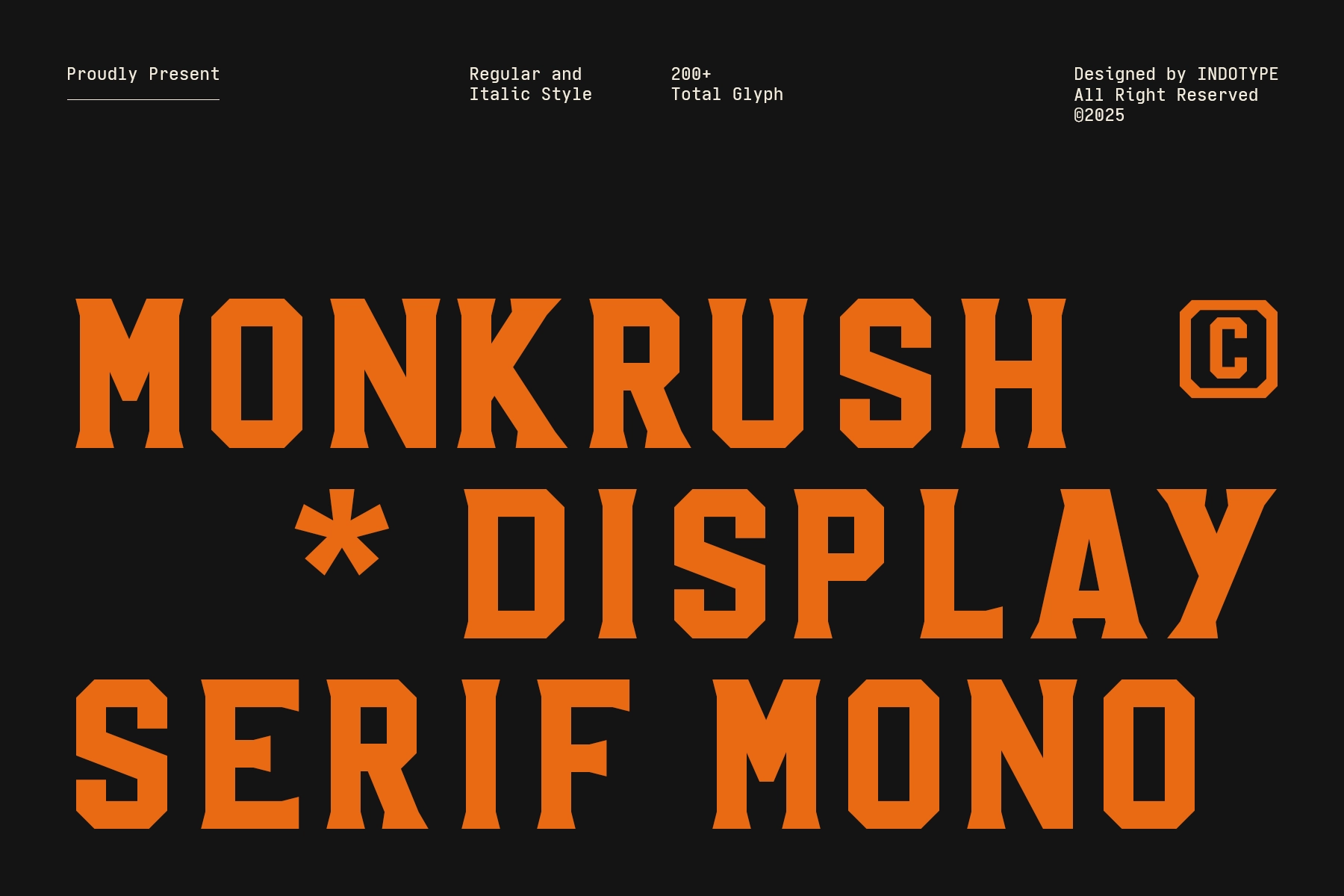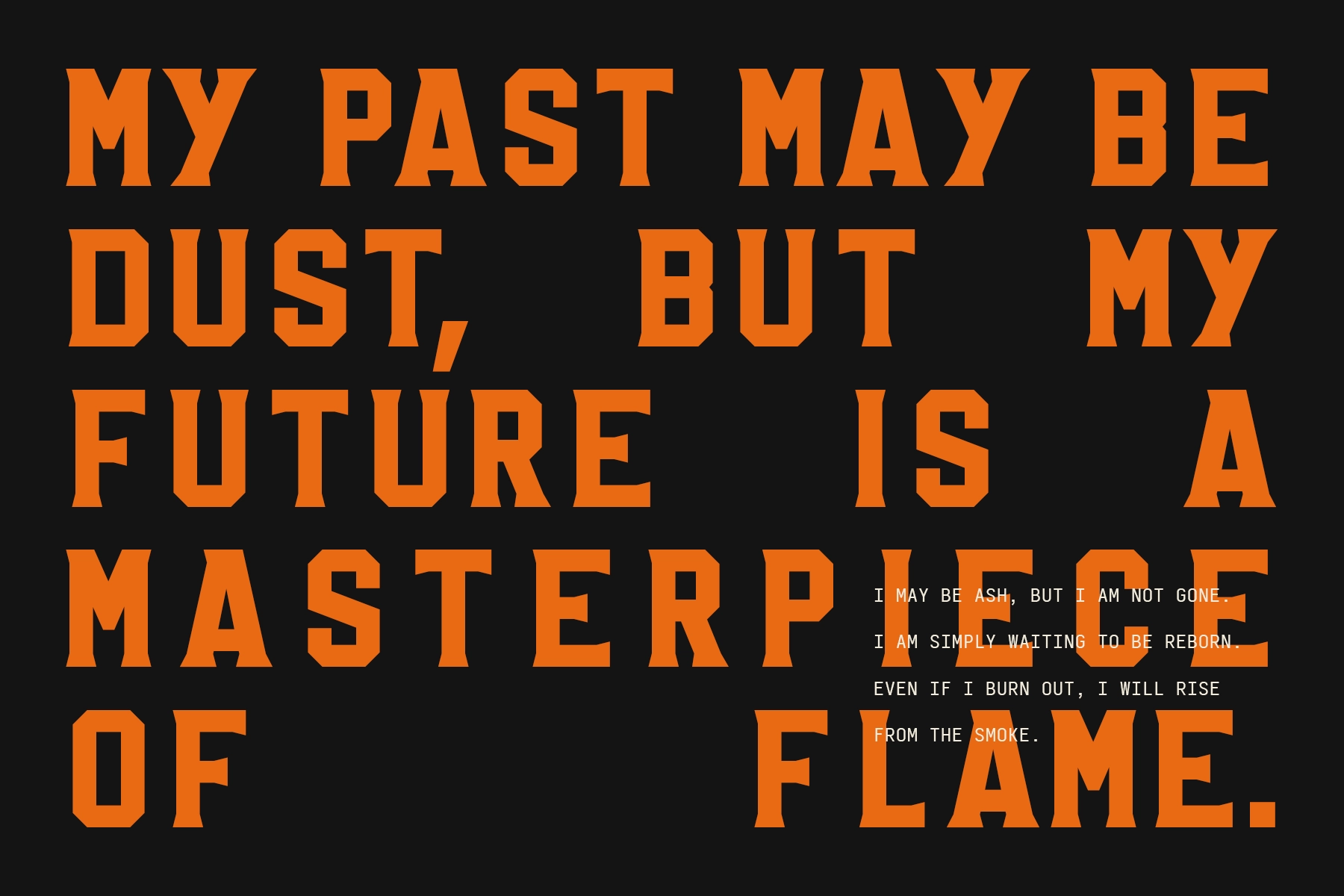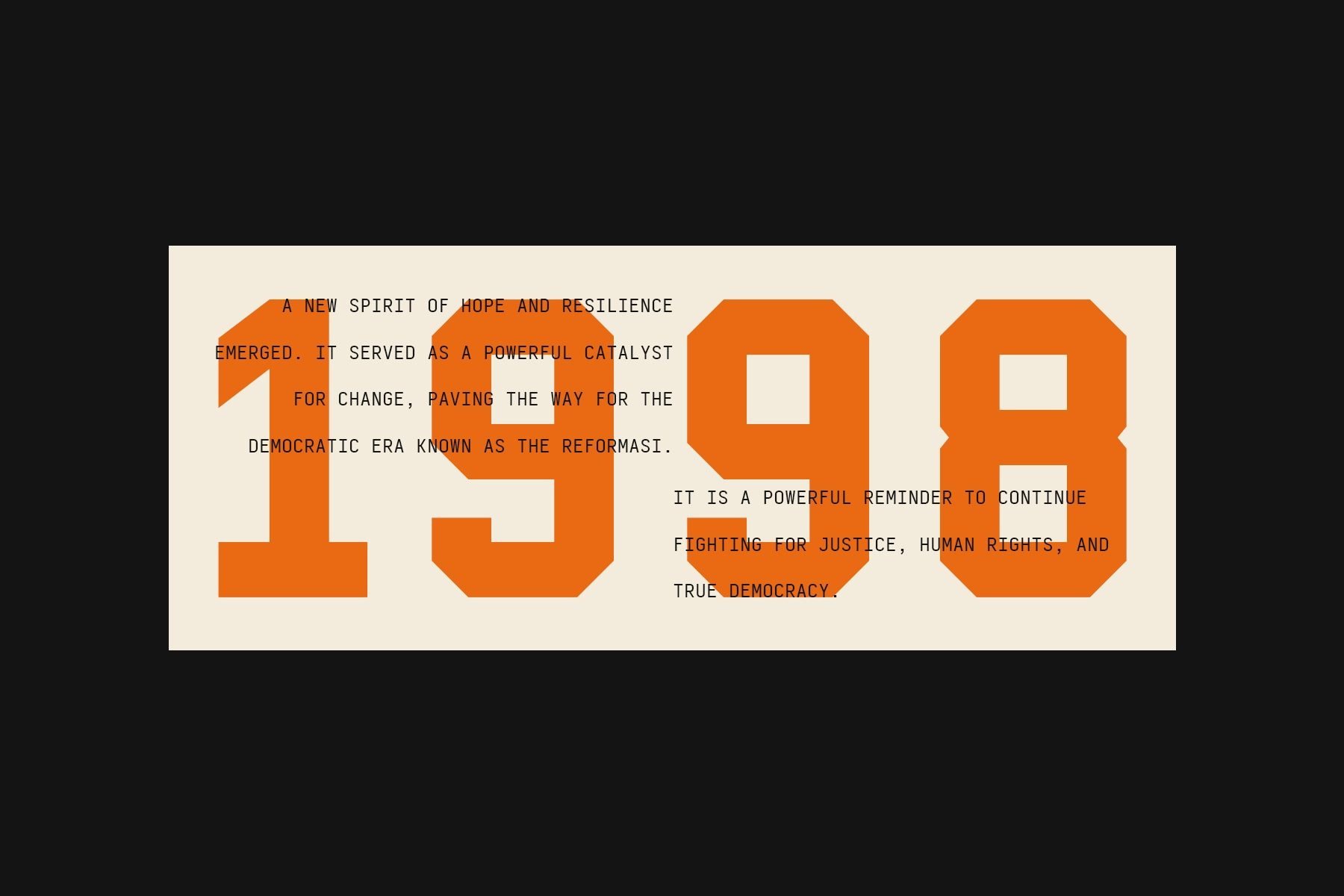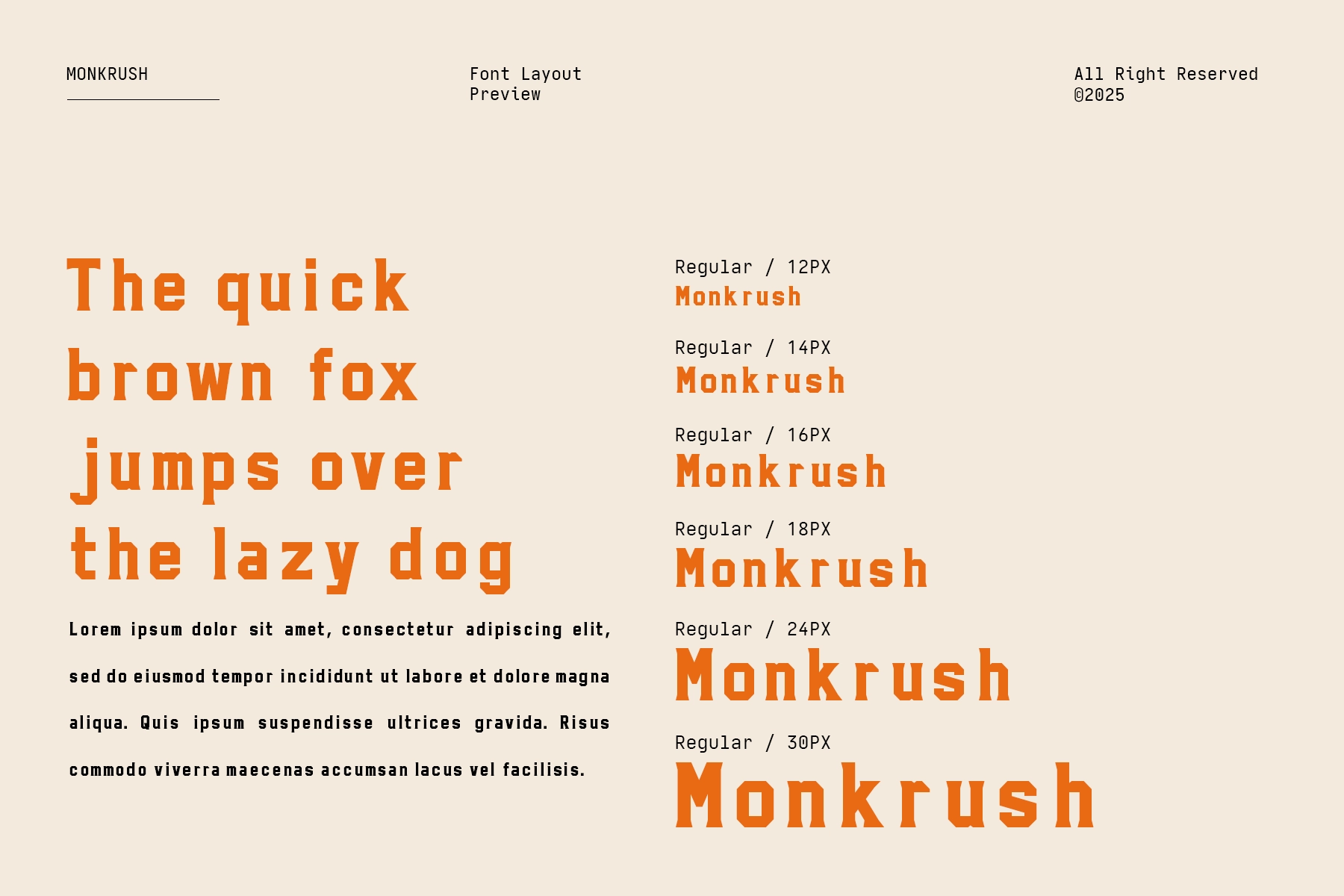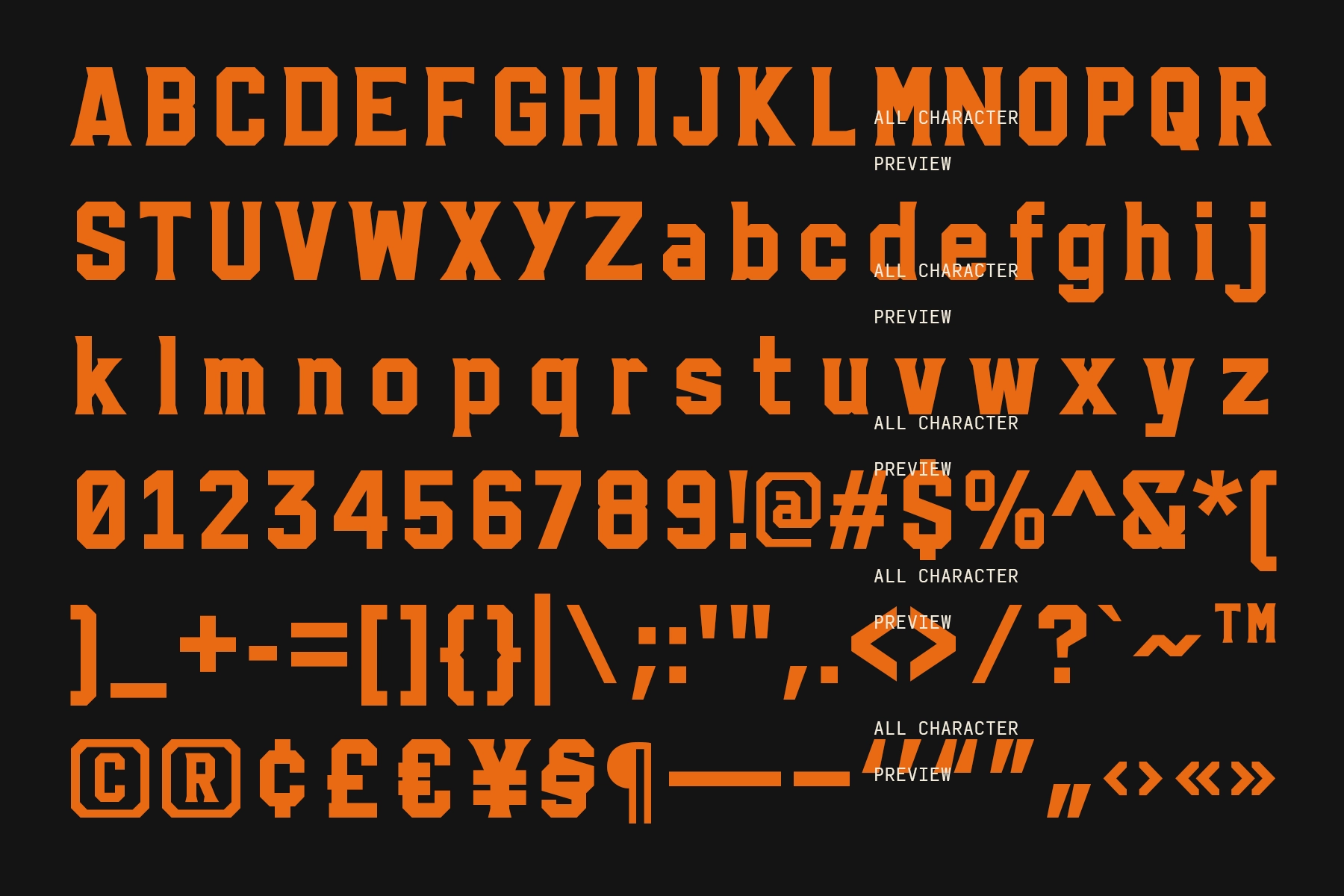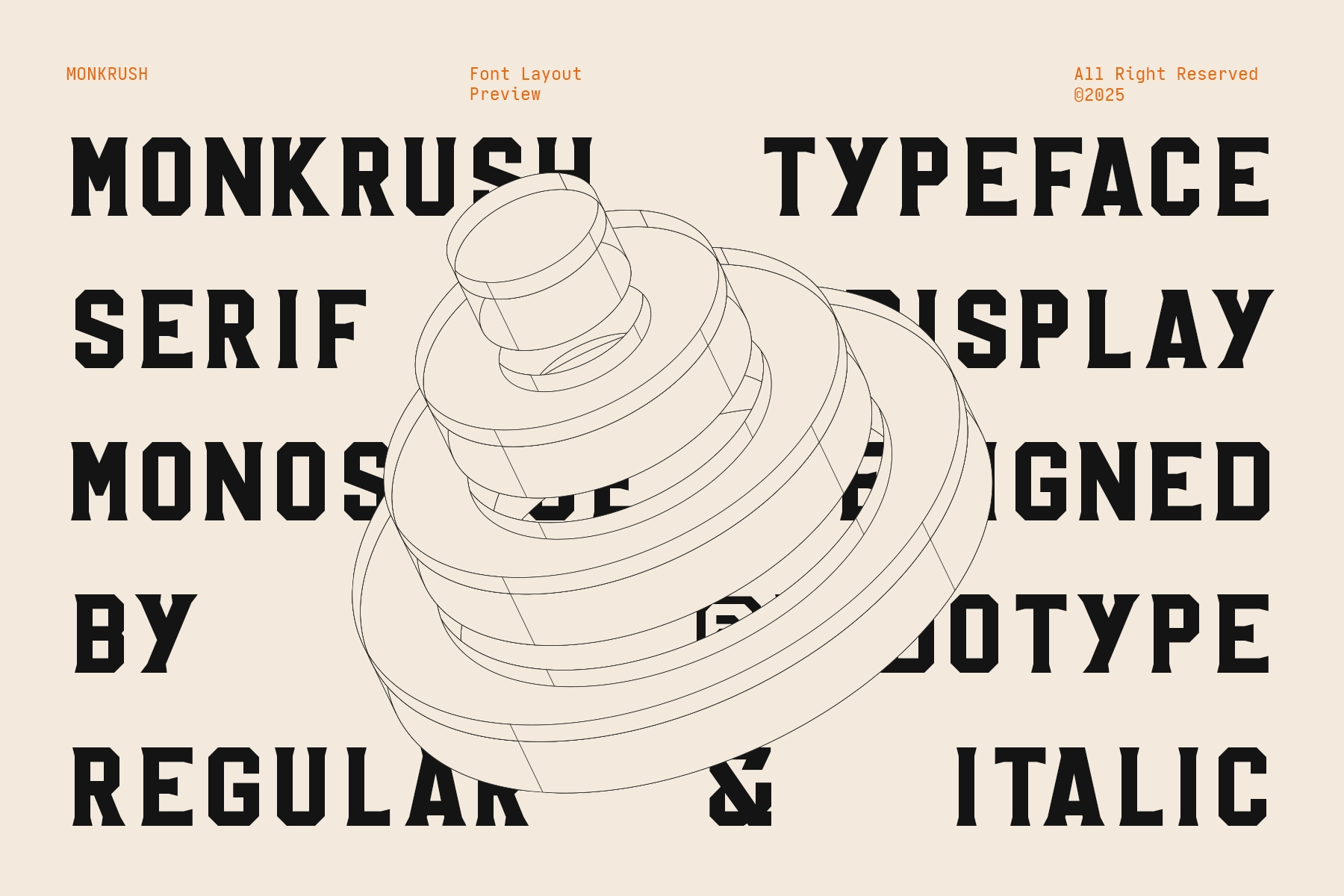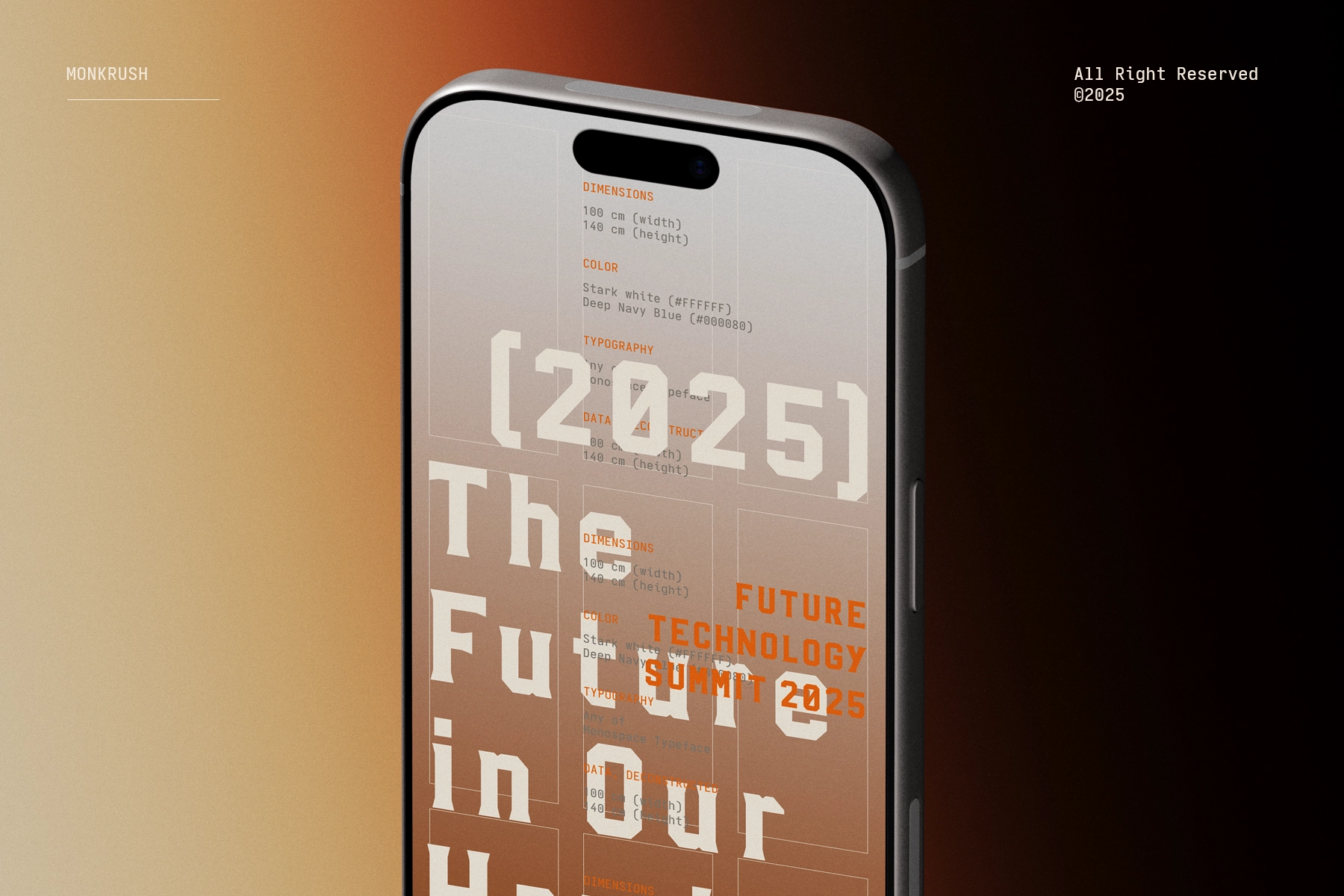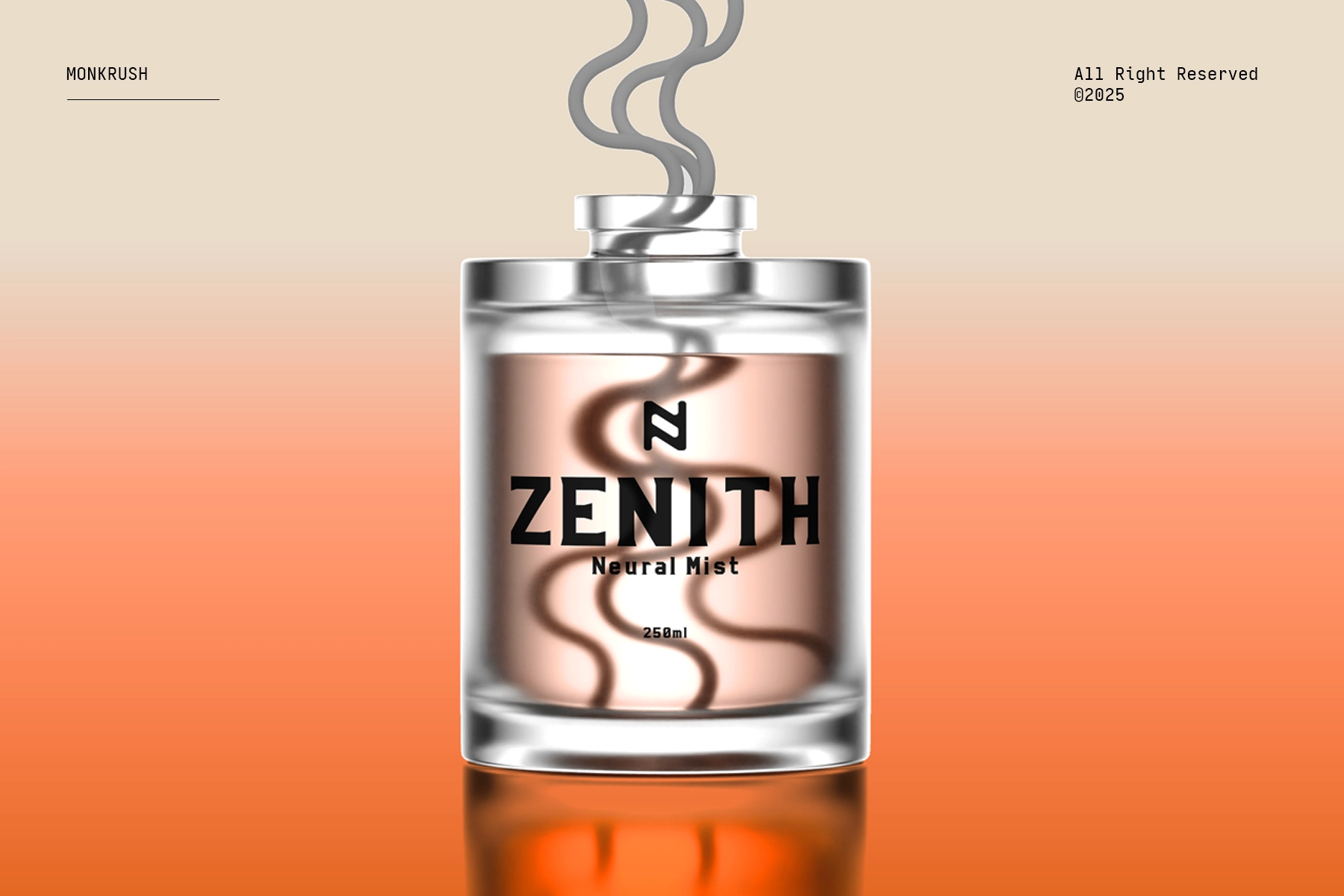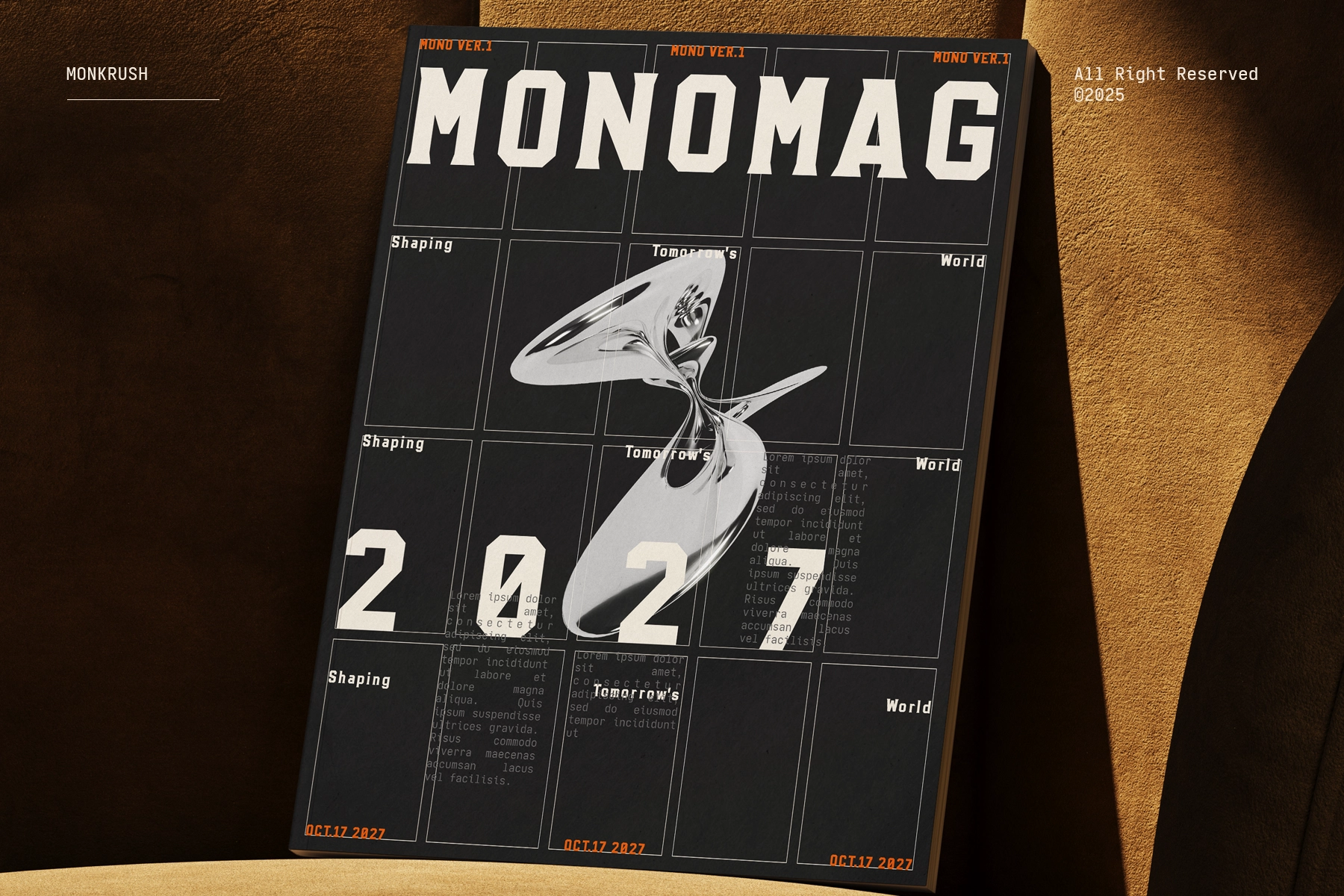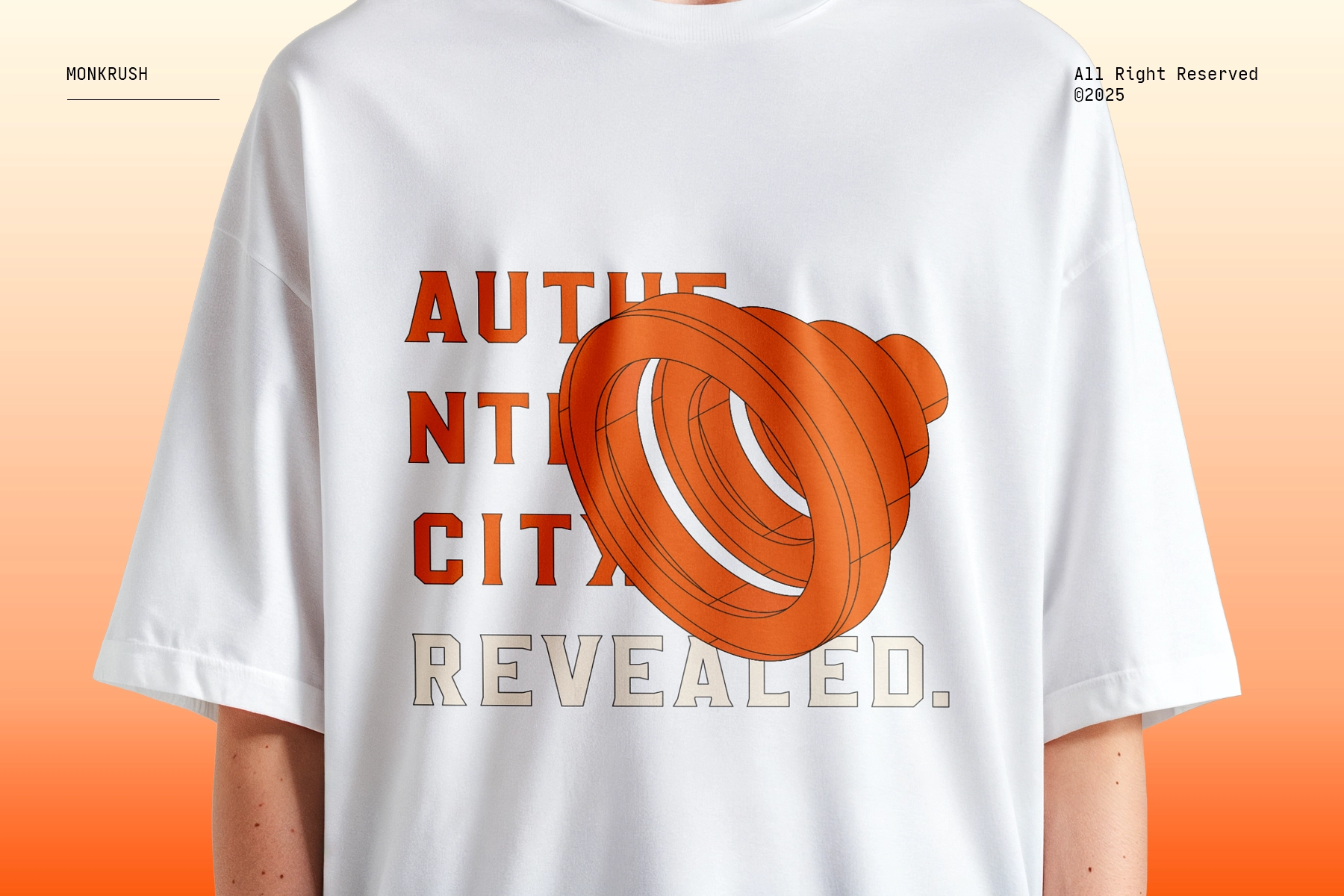
Monkrush - Display Serif Font
This display serif has the blunt confidence of factory signage, varsity lettering, and machine-cut type pulled into a strict mono rhythm. Heavy stems, angular slab details, squared counters, and compact spacing give it a sharp industrial voice without turning the page into a hardware store aisle.
Monkrush is made for posters, sports branding, editorial headlines, apparel graphics, album covers, game titles, tech identity systems, packaging, signage, event promos, web headers, logo marks, and more.
• 2 styles: Regular, Italic
• 200+ total glyphs